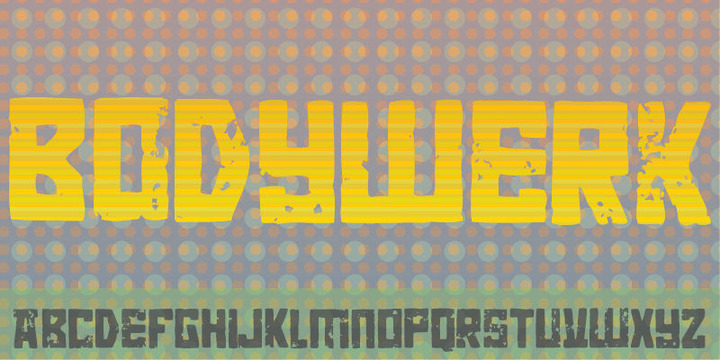
Bodywerk is a futuristic looking font, but worn and torn!
The font has got more than 200 ligatures - including double letter and number substitution - along with a huge load of most common letter combinations!